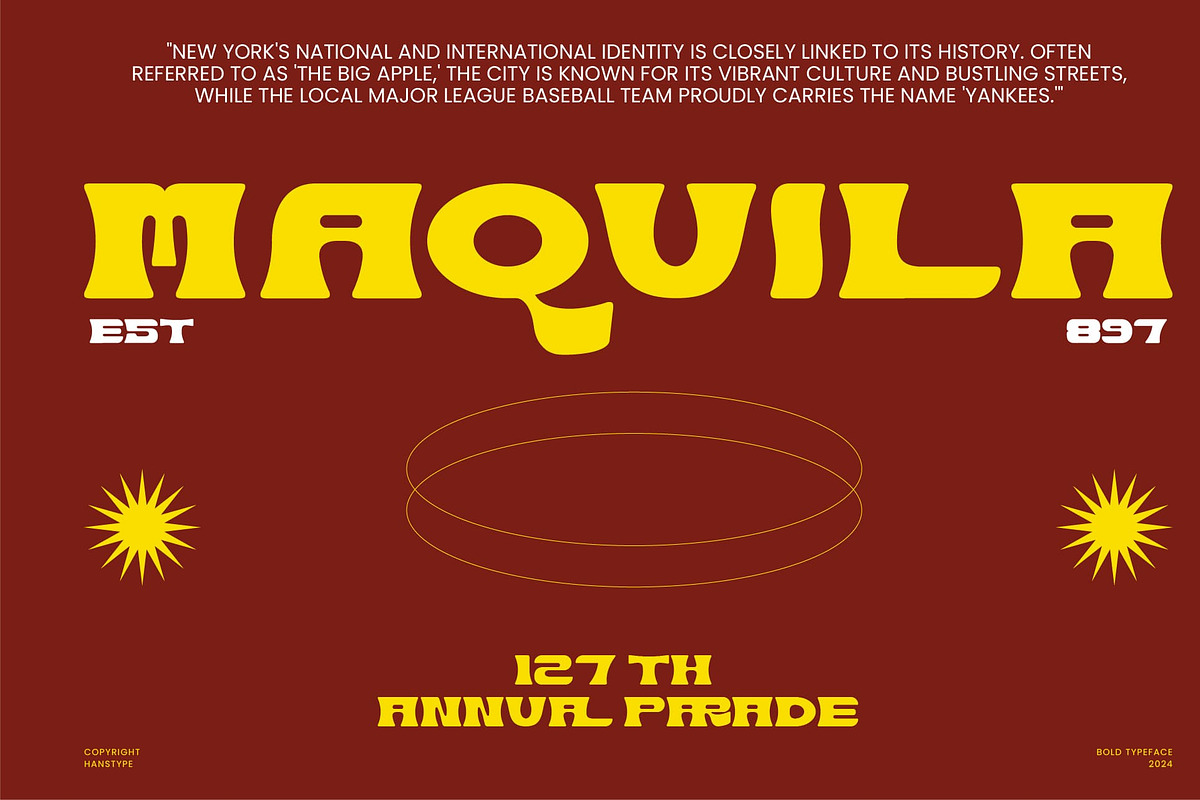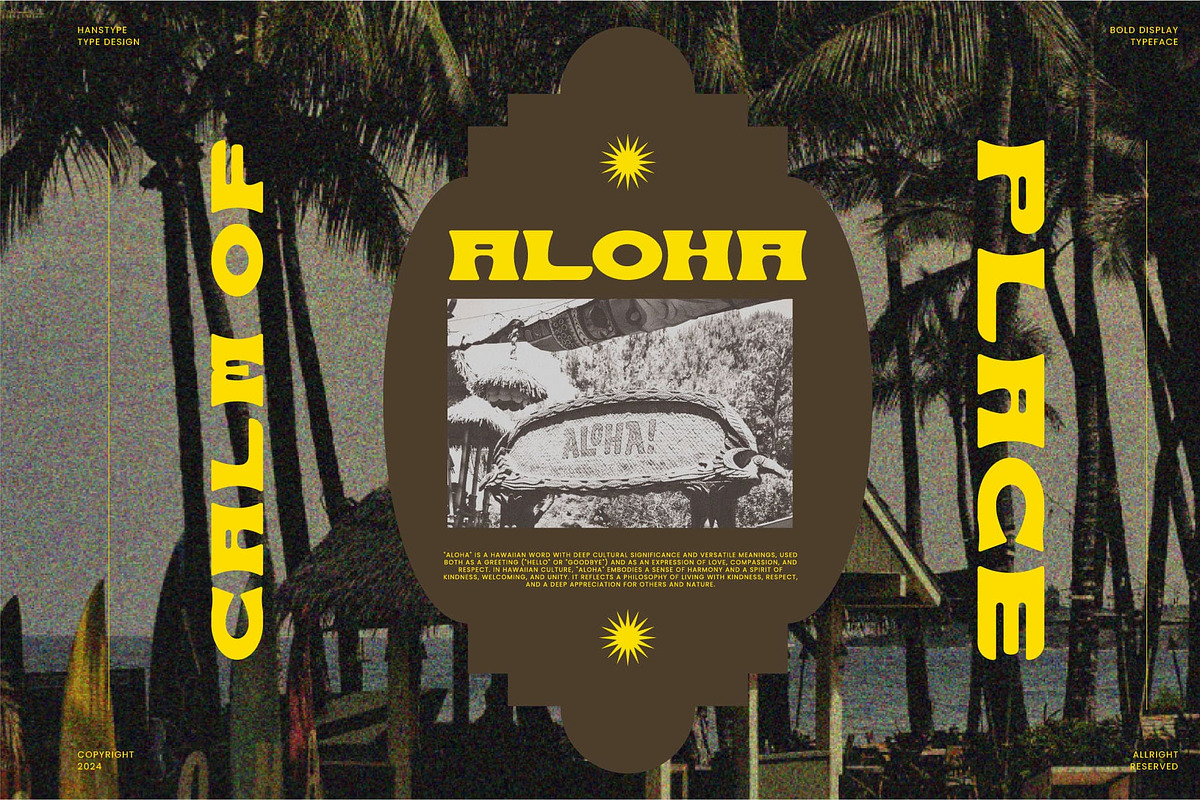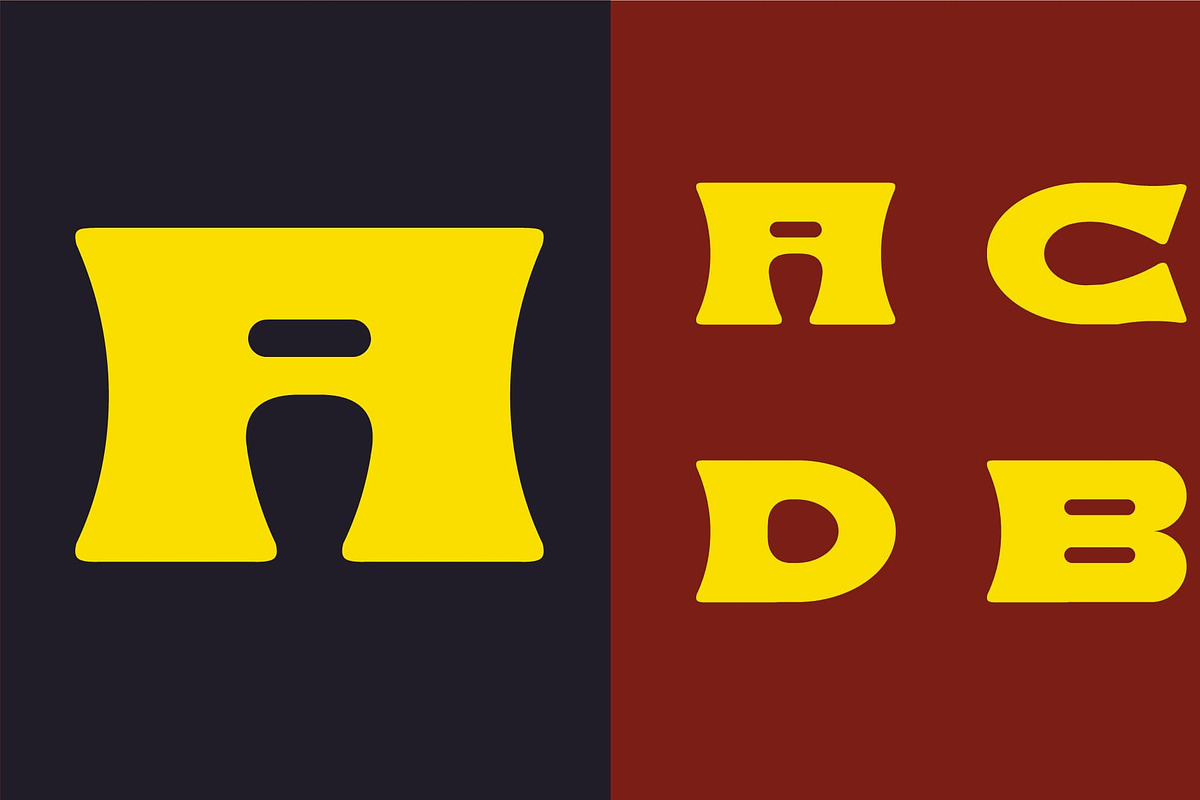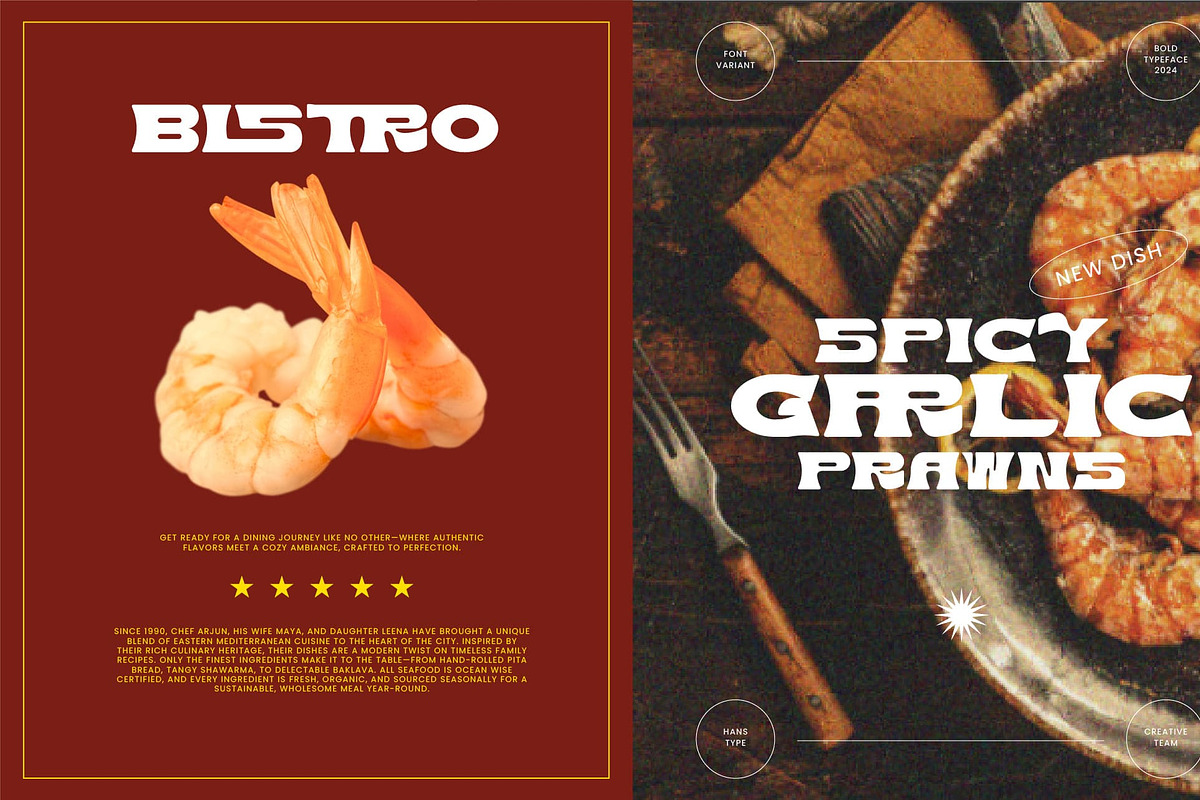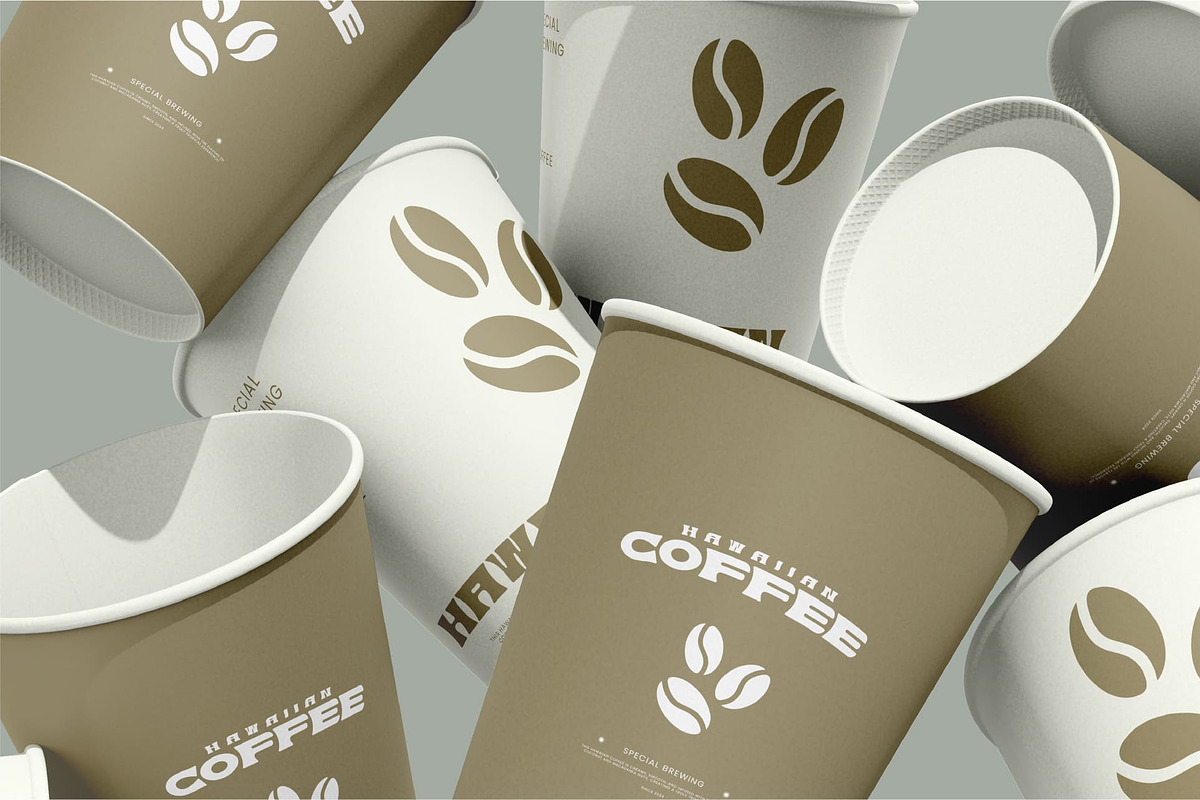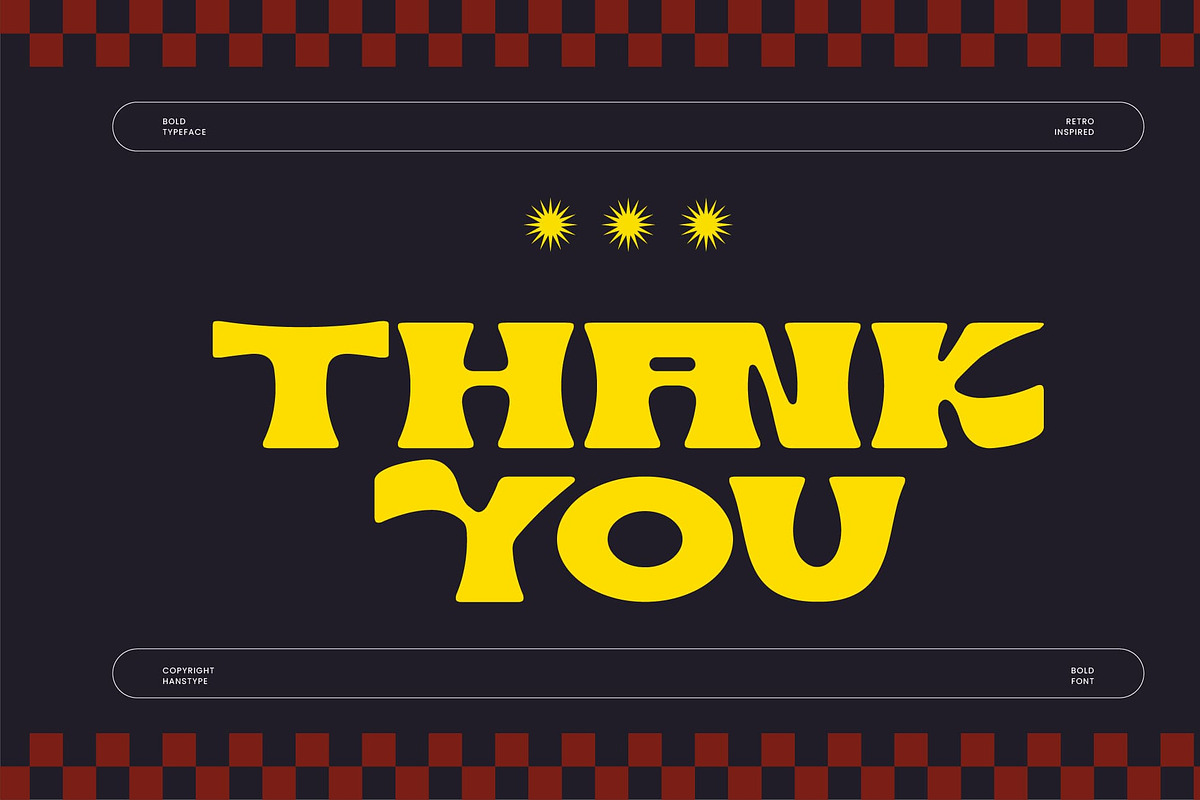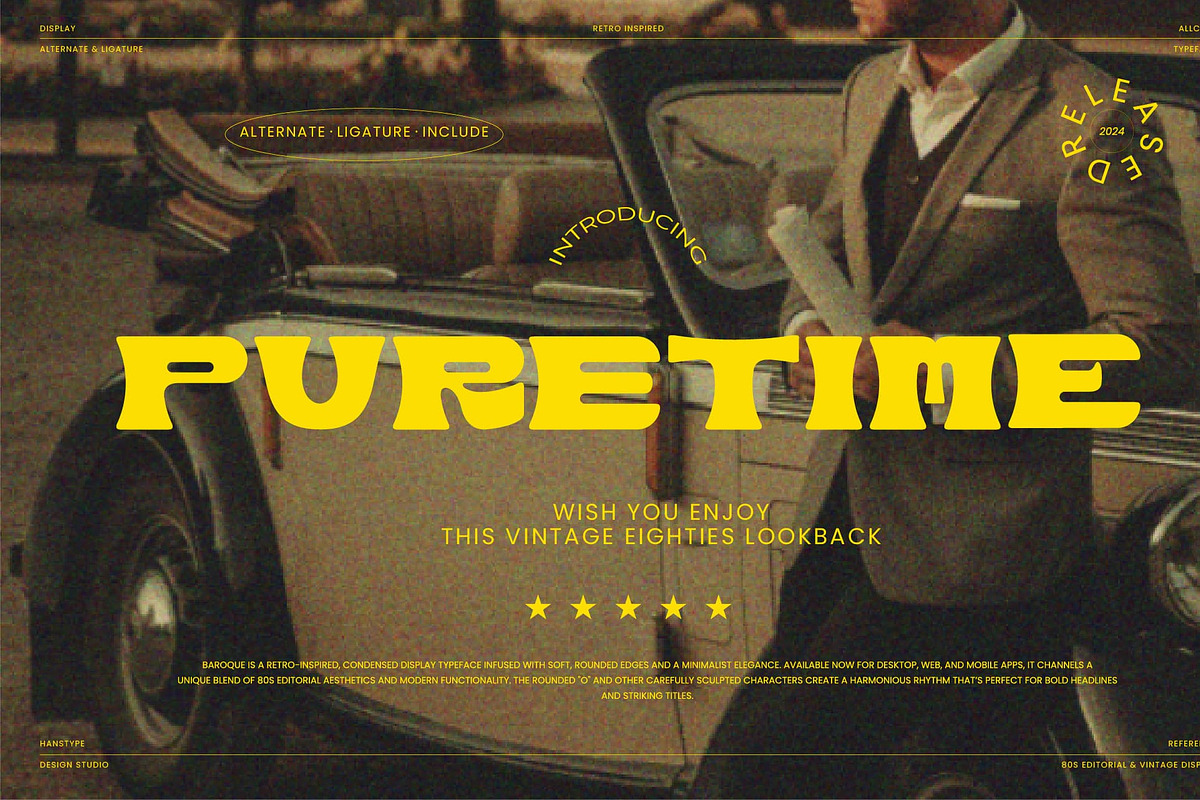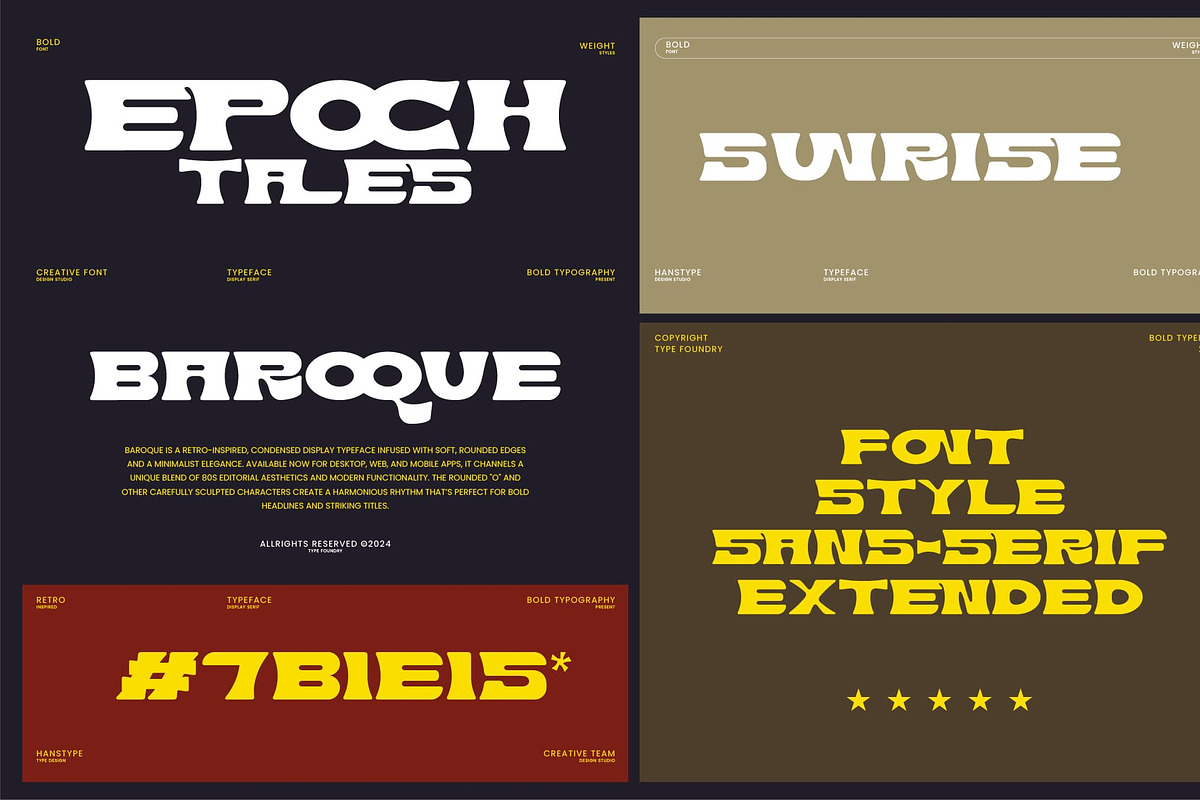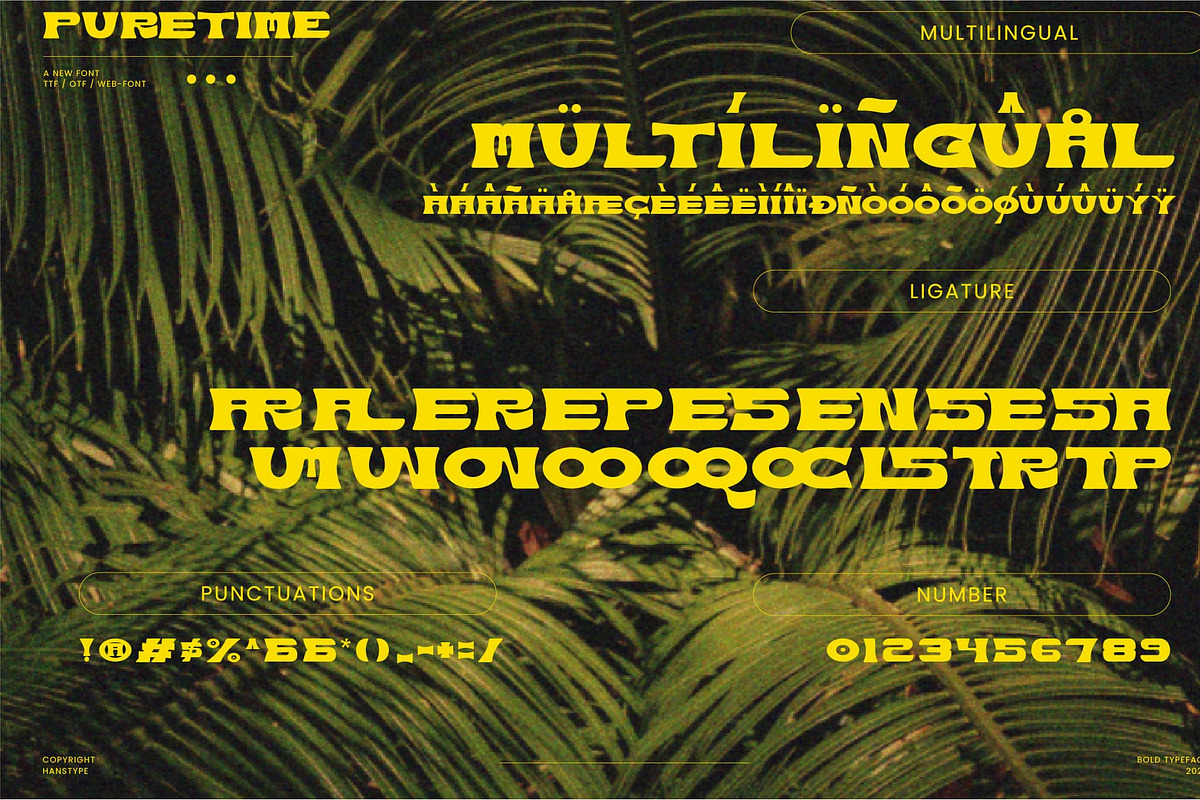
Puretime - Retro Vintage Bold Font
Puretime is a bold serif font with a vintage-retro charm, blending classic serif forms with a timeless, nostalgic flair. Designed for strong visual impact, it’s perfect for headlines, posters, and branding that call for a bold, classic touch with a modern edge.